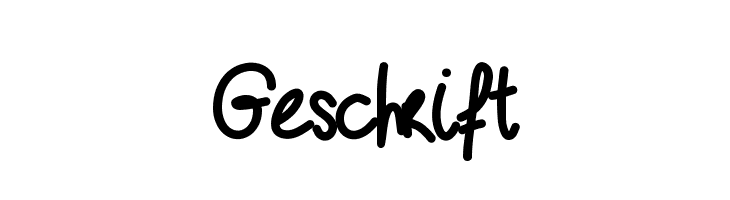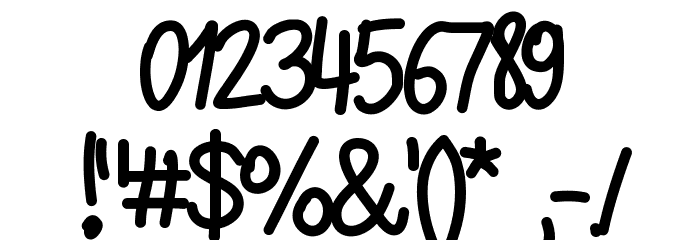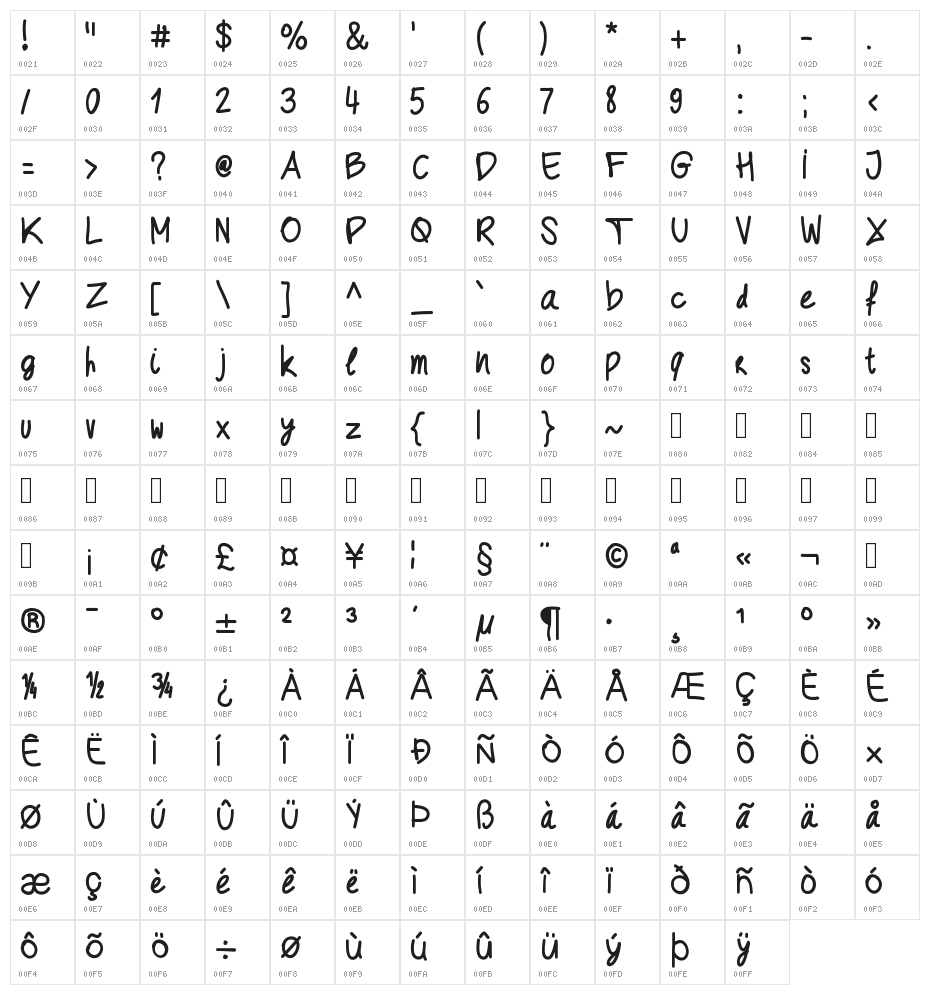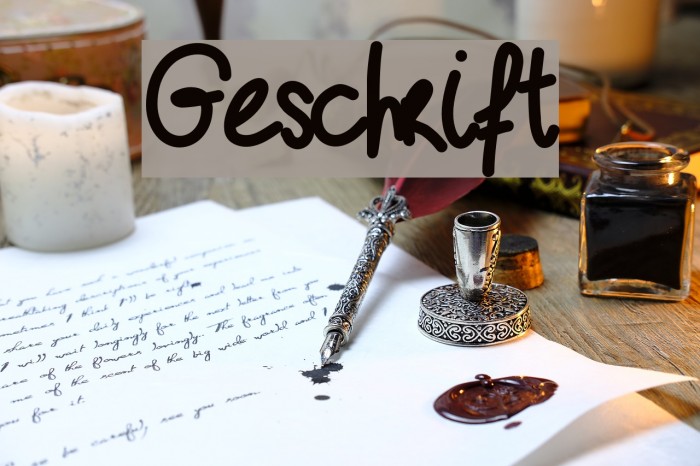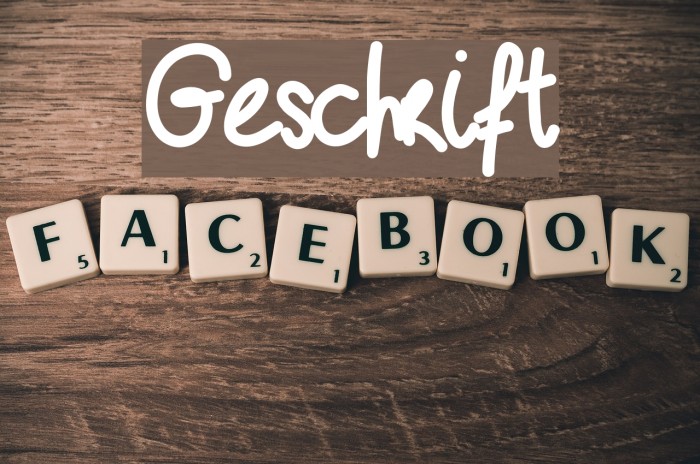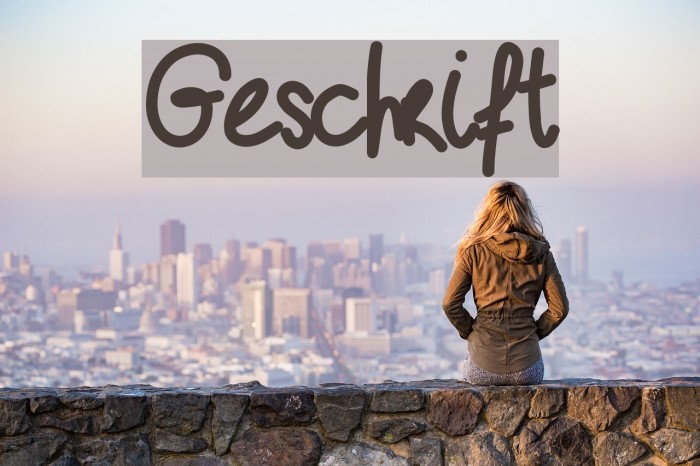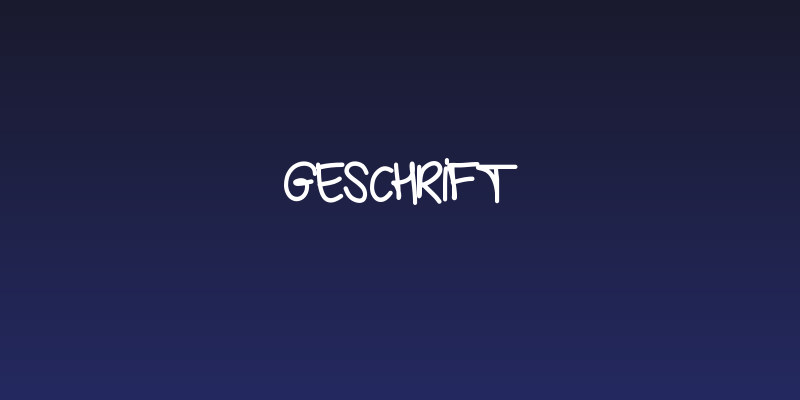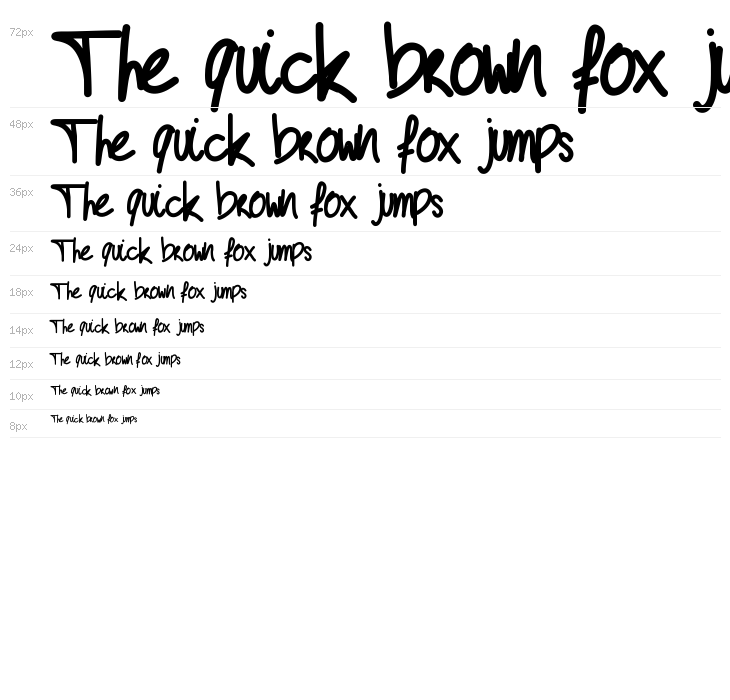
Geschrift Font
Geschrift Description
This font features a playful and casual handwritten style, characterized by its bold and slightly irregular strokes. The letters are crafted with a sense of spontaneity, giving them a lively and informal appearance. The uppercase and lowercase characters maintain a consistent flow, with rounded edges and a slight slant that adds to the dynamic feel. The numbers and special characters are equally expressive, fitting seamlessly with the overall aesthetic. This font exudes a sense of creativity and personal touch, making it ideal for projects that require a friendly and approachable look.
| Use Case | Logos, Headlines, Informal Invitations |
| Proposed Projects | Ideal for greeting cards, personal branding, social media graphics, and children's book covers. |